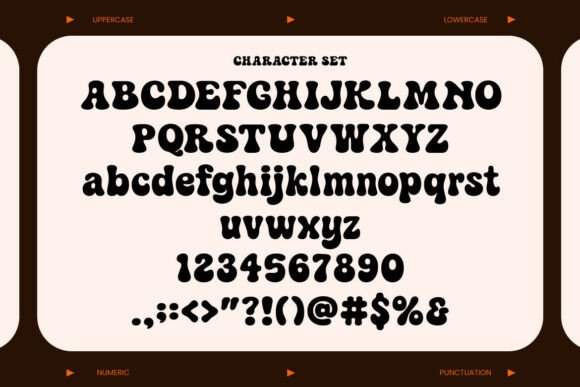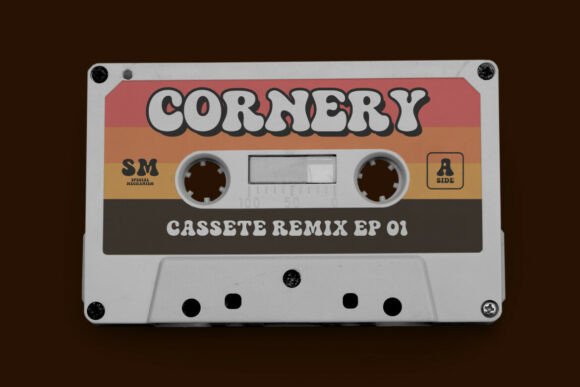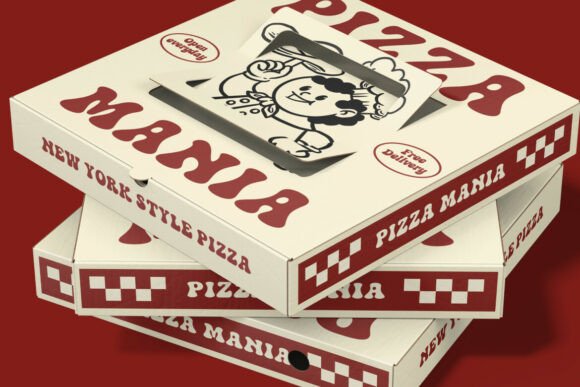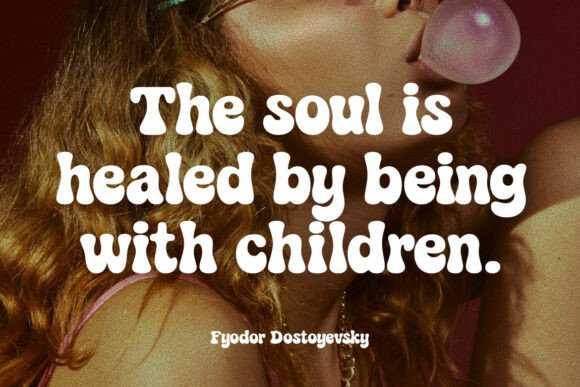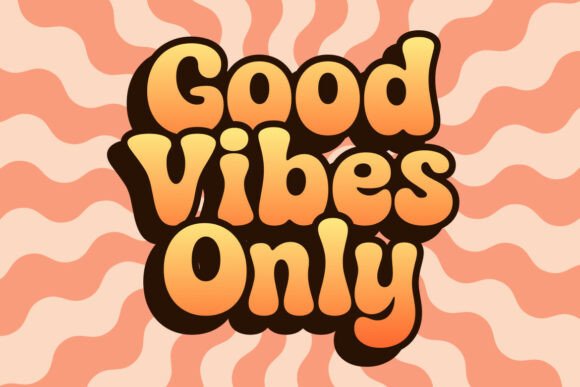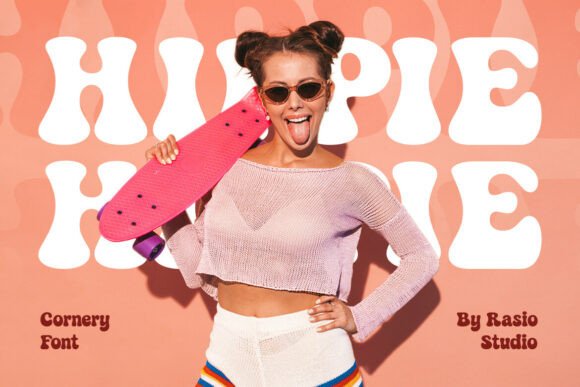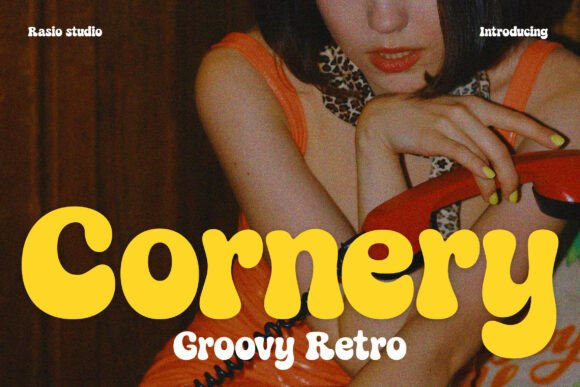
Embrace the Funk with Cornery Font: A Groovy Retro Display Face
Are you looking for a font that can transport you back to the fabulous 1970s? Look no further than Cornery, a groovy retro display face that’s perfect for adding a touch of nostalgia to your designs. With its unique blend of thick, rounded forms and tight spacing, Cornery is a versatile font that can evoke a sense of 70s nostalgia in any project.
The Art of the “Bubbly” Aesthetic
Cornery Font is a masterclass in creating a “bubbly” aesthetic that’s perfect for retro-inspired designs. The font’s rounded forms and smooth curves give it a friendly, approachable feel that’s hard to resist. Whether you’re designing a vintage t-shirt, a modern lifestyle magazine cover, or a nostalgic advertising campaign, Cornery is the perfect choice.
Balancing Thick, Rounded Forms with Tight Spacing
One of the standout features of Cornery Font is its expert balancing act between thick, rounded forms and tight spacing. This unique combination creates a sense of energy and movement that’s perfect for capturing the spirit of the 1970s. The font’s bold, chunky letters are offset by the tight spacing, which creates a sense of intimacy and playfulness.
A Versatile Retro Workhorse
Cornery Font is more than just a pretty face – it’s a versatile retro workhorse that can be used in a wide range of design projects. Whether you’re creating a retro lifestyle brand, designing a vintage-inspired apparel line, or crafting a nostalgic advertising campaign, Cornery is the perfect choice. The font’s flexibility and adaptability make it a valuable addition to any designer’s toolkit.
Best Use Cases for Cornery Font
So, where can you use Cornery Font to get the most impact? Here are some of the best use cases for this groovy retro display face:
- Retro lifestyle branding: Cornery Font is perfect for creating retro-inspired brand identities that evoke a sense of nostalgia and fun.
- Vintage apparel: Add a touch of 70s flair to your vintage-inspired apparel line with Cornery Font.
- Blog headers: Use Cornery Font to create eye-catching blog headers that grab attention and evoke a sense of nostalgia.
- Nostalgic advertising campaigns: Cornery Font is the perfect choice for creating nostalgic advertising campaigns that transport audiences back to the 1970s.
Tips for Using Cornery Font
To get the most out of Cornery Font, here are some tips to keep in mind:
- Use it boldly: Cornery Font is a bold, attention-grabbing font that’s perfect for headlines and titles.
- Experiment with colors: Try pairing Cornery Font with bright, bold colors to create a truly retro look.
- Mix and match: Combine Cornery Font with other fonts to create a unique and interesting contrast.
Cornery Font is a groovy retro display face that’s perfect for designers and crafters looking to add a touch of 70s nostalgia to their projects. With its unique blend of thick, rounded forms and tight spacing, Cornery is a versatile font that can evoke a sense of nostalgia and fun. Whether you’re creating a retro lifestyle brand, designing a vintage-inspired apparel line, or crafting a nostalgic advertising campaign, Cornery Font is the perfect choice.